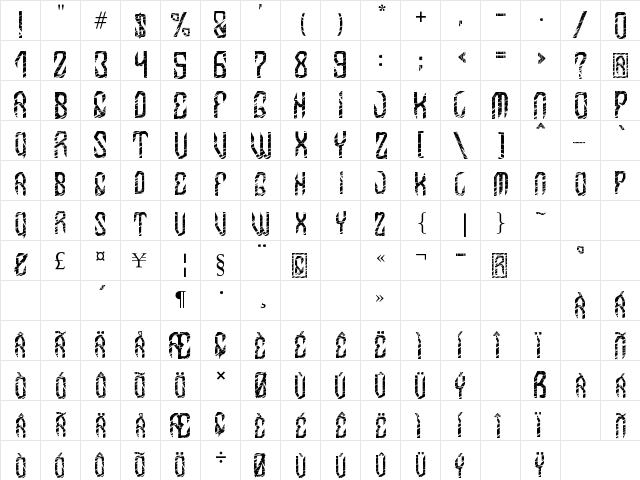
MB-InDigit Regular
| Designer | ModBlackmoon |
Design Context for MB-InDigit Typeface
MB-InDigit channels digital-age aesthetics through its sharp, structured letterforms — ideal for brands that want to signal innovation.
Pro Tip: Use MB-InDigit in combination with a neutral sans for body text. Let it define the brand voice in headlines while keeping reading comfortable elsewhere.